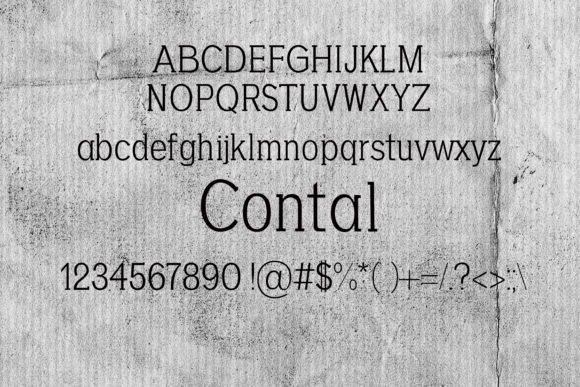
Discover the Elegance of Contal Font: A Bold and Classy Serif Choice
In the world of typography, fonts play a crucial role in conveying messages, expressing creativity, and setting the tone for various design projects. For designers and crafters looking for a font that exudes elegance, sophistication, and a touch of uniqueness, the Contal Font is an excellent choice. This article will delve into the characteristics, uses, and benefits of the Contal Font, exploring how its bold feel can elevate your design projects.
What is Contal Font?
Contal is a fancy and classy serif font that stands out due to its distinctive style. Serif fonts are known for their small lines or flourishes at the ends of the letters, which give them a traditional and classic look. Contal, however, takes this classic look to a new level with its bold and unique approach to serif typography. It’s designed to make a statement, making it perfect for projects that require a touch of luxury and elegance.
Key Features of Contal Font
- Unique Style: Contal boasts a one-of-a-kind design that sets it apart from other serif fonts. Its unique style is characterized by its bold lines and elegant serifs, making it a versatile choice for various design needs.
- Bold Feel: The font’s bold feel is one of its most striking features. It allows for designs to stand out without sacrificing readability, making it ideal for headings, titles, and any text that needs to grab attention.
- Elegance and Sophistication: Contal’s design exudes elegance and sophistication, making it suitable for high-end projects, luxury brands, and creative endeavors that require a classy touch.
- Versatility: Despite its bold nature, Contal is surprisingly versatile. It can be used in a variety of contexts, from digital platforms like websites and social media to print materials such as brochures, posters, and business cards.
Uses of Contal Font
The versatility of Contal Font makes it suitable for a wide range of applications. Here are some of the most popular uses:
- Branding and Logo Design: For businesses looking to create a luxurious and memorable brand image, Contal can be a valuable asset. Its unique and bold style can help brands stand out in a crowded market.
- Web Design: Websites need fonts that are not only visually appealing but also user-friendly. Contal’s bold feel and elegant design make it an excellent choice for website headings and titles, adding a professional touch to any site.
- Print Design: For print materials, Contal can add a level of sophistication and class. It’s perfect for designing high-end brochures, elegant business cards, and eye-catching posters.
- Packaging Design: Product packaging can greatly benefit from Contal’s unique style, especially for luxury goods. It can help create a premium feel that attracts consumers.
Benefits of Using Contal Font
Choosing Contal Font for your design projects comes with several benefits:
- Enhanced Readability: Despite its bold nature, Contal maintains high readability, ensuring that your message is conveyed effectively.
- Unique Aesthetic: Its distinctive style ensures that your designs stand out from the crowd, capturing the attention of your audience.
- Time-Saving: With Contal, you can achieve a high-end look without spending hours on custom typography design.
Contal Font offers a perfect blend of elegance, uniqueness, and boldness, making it an excellent choice for designers and crafters looking to elevate their projects. Whether you’re working on branding, web design, print materials, or packaging, Contal can help you achieve a sophisticated and luxurious look. By incorporating Contal into your design toolkit, you can create visually stunning and effective designs that leave a lasting impression on your audience.
So, get inspired by the bold feel of Contal Font and explore the endless possibilities it offers for your next design project.